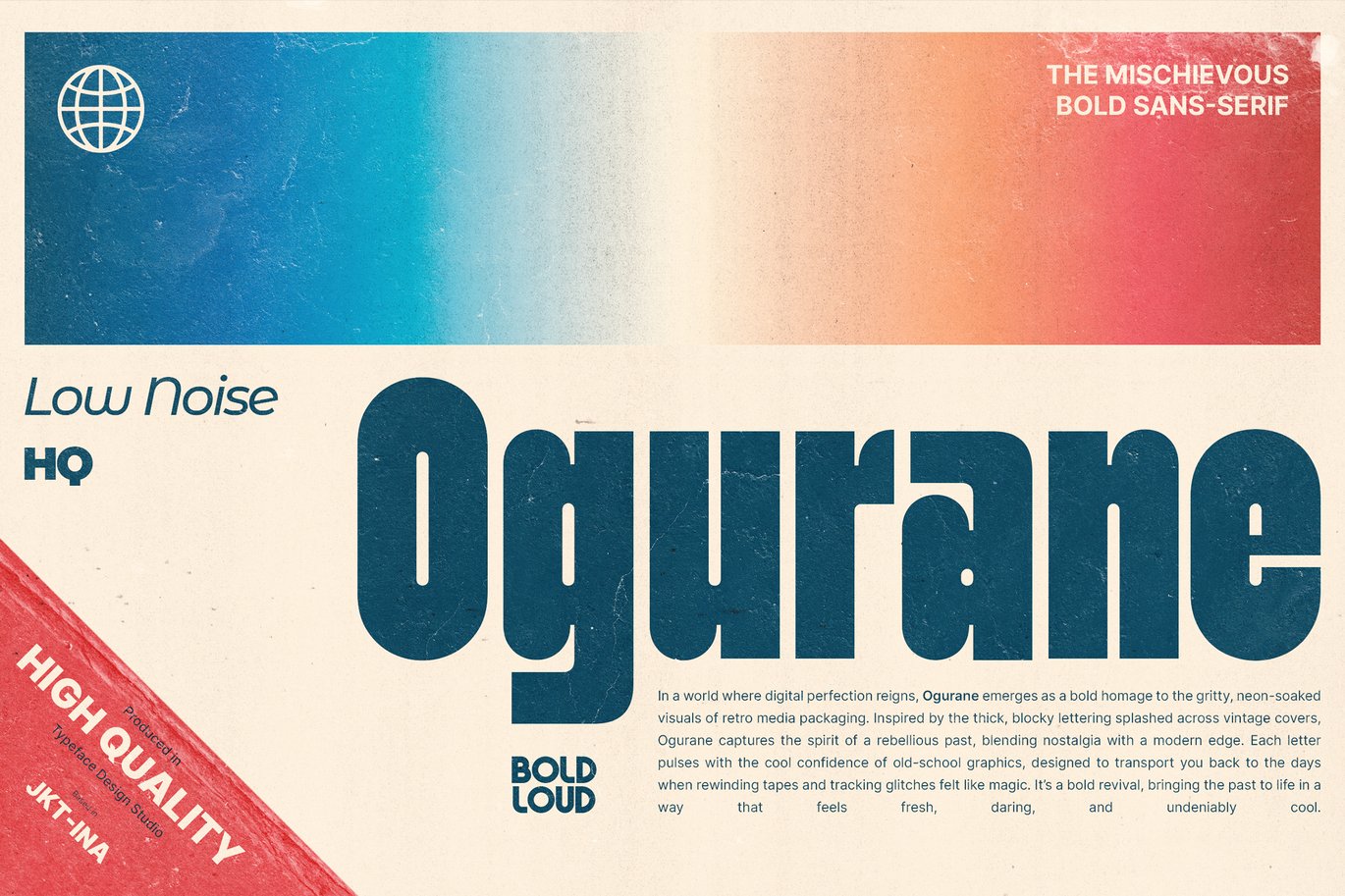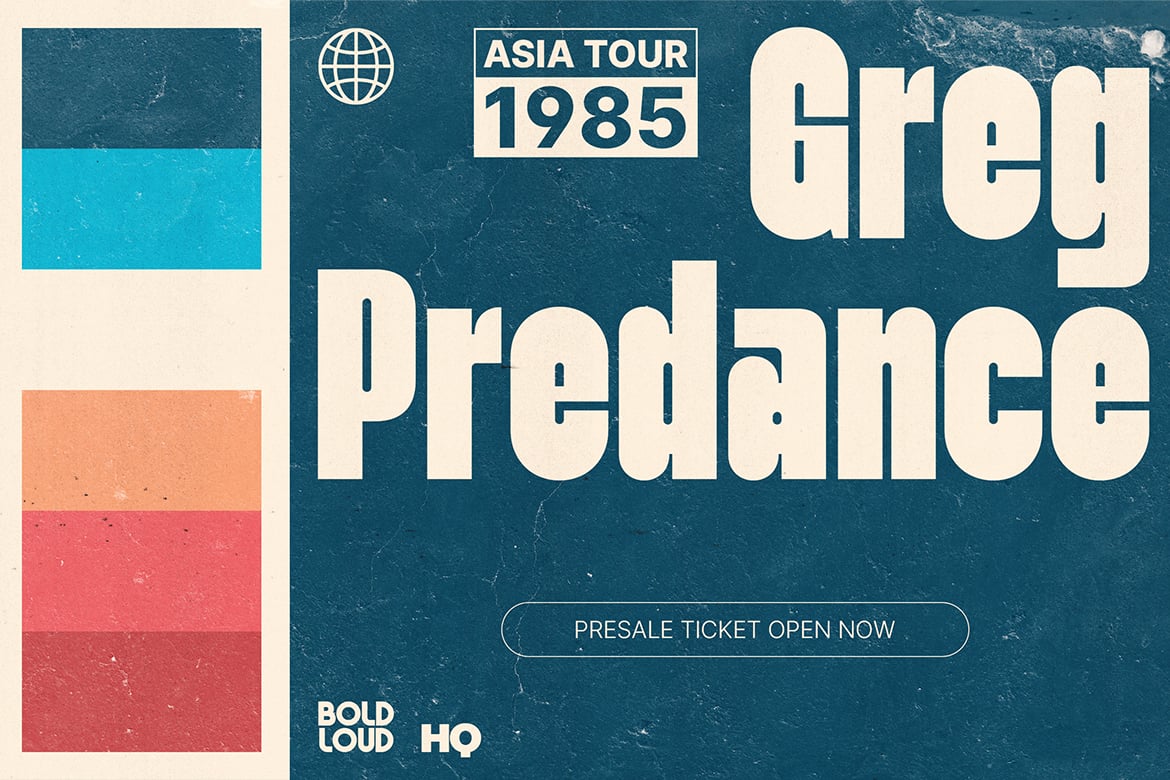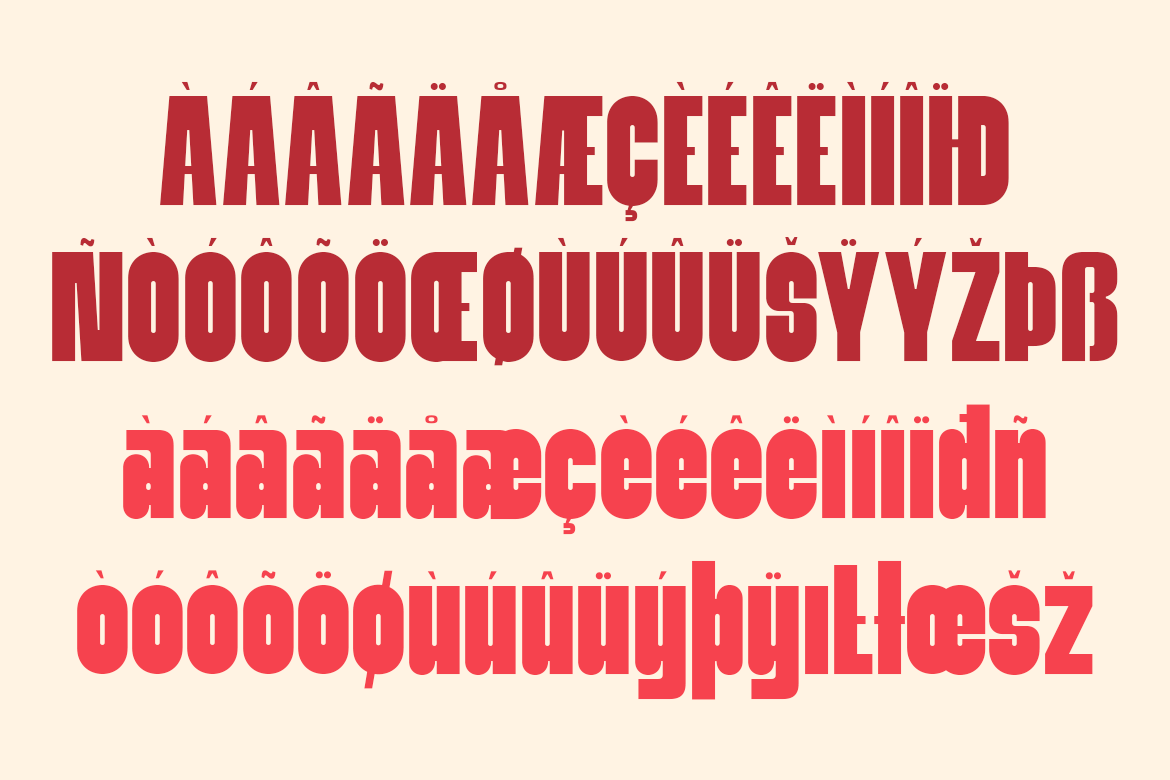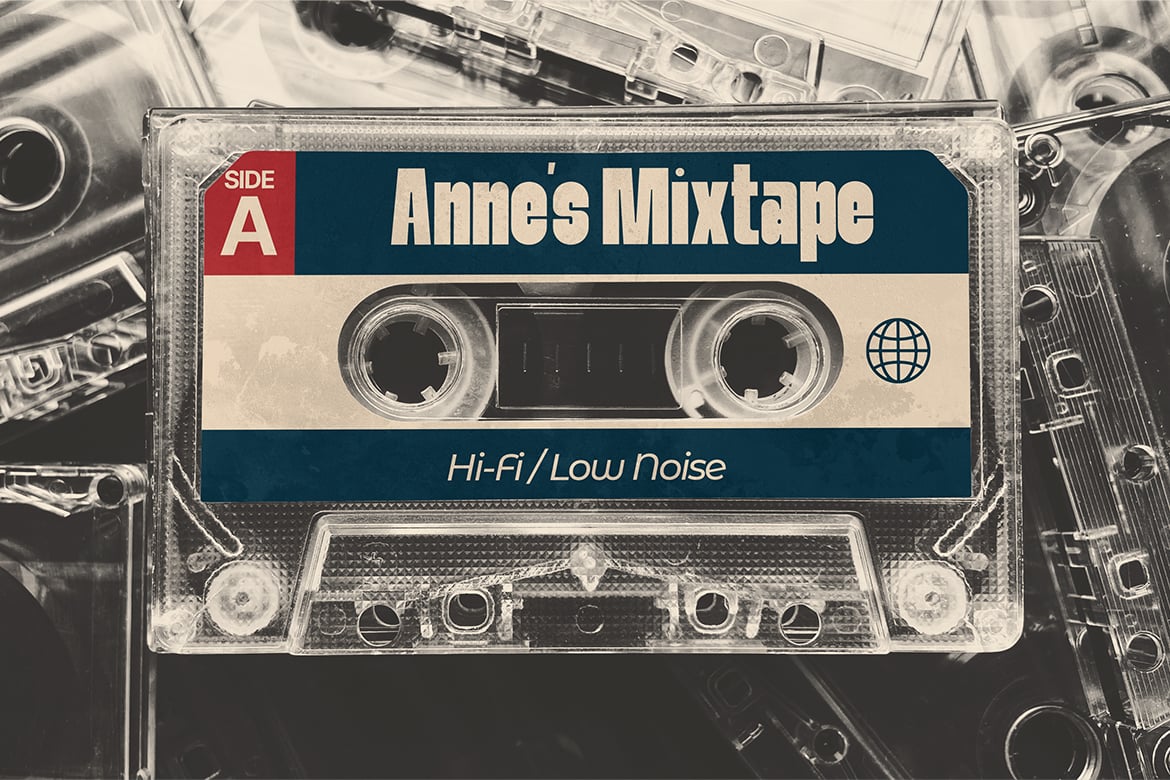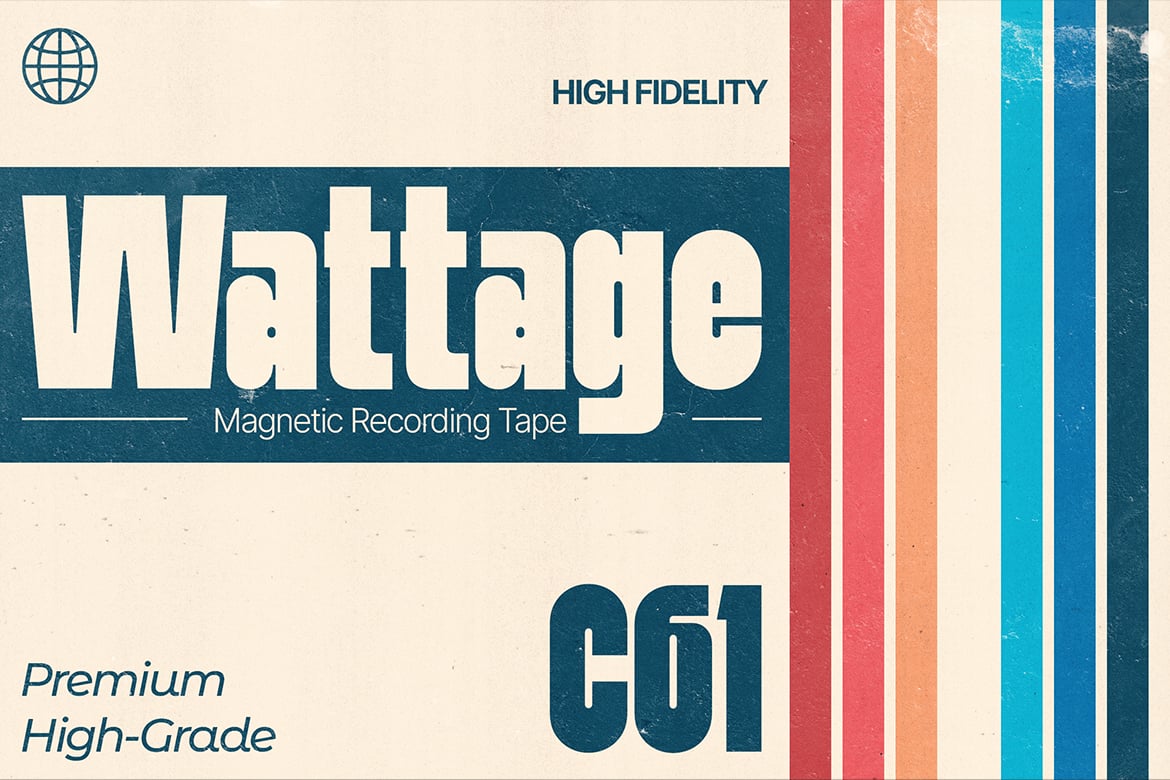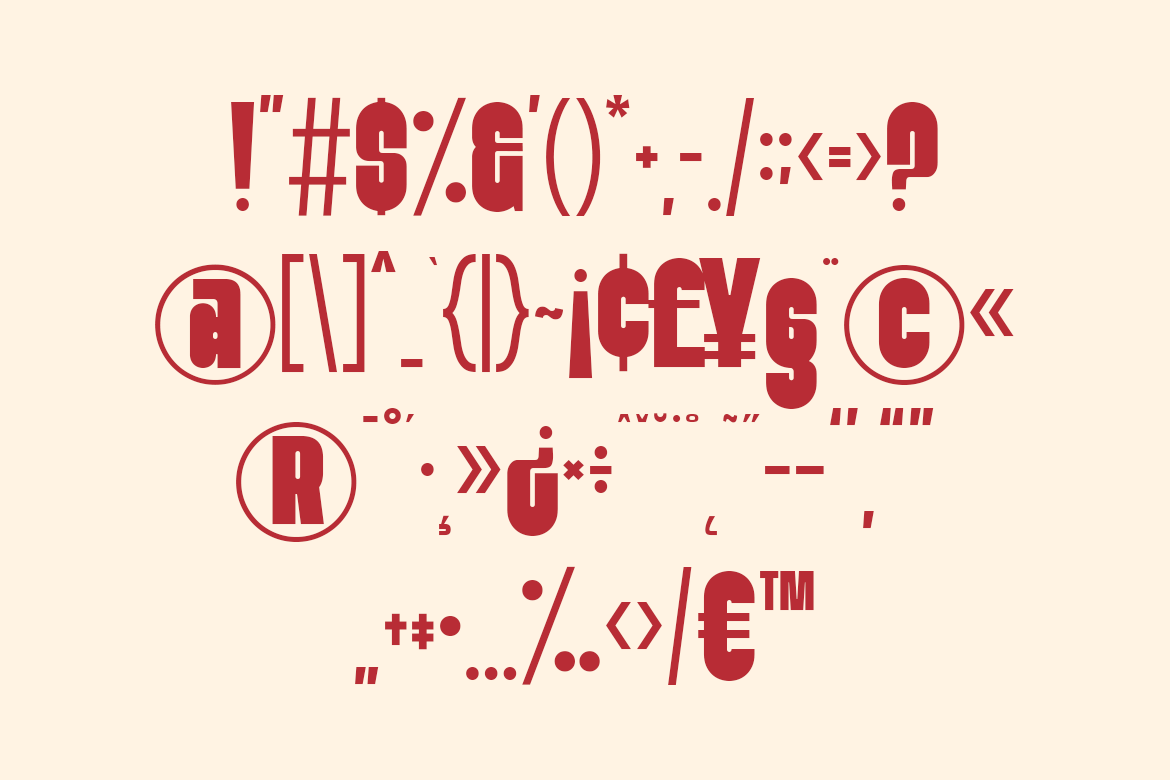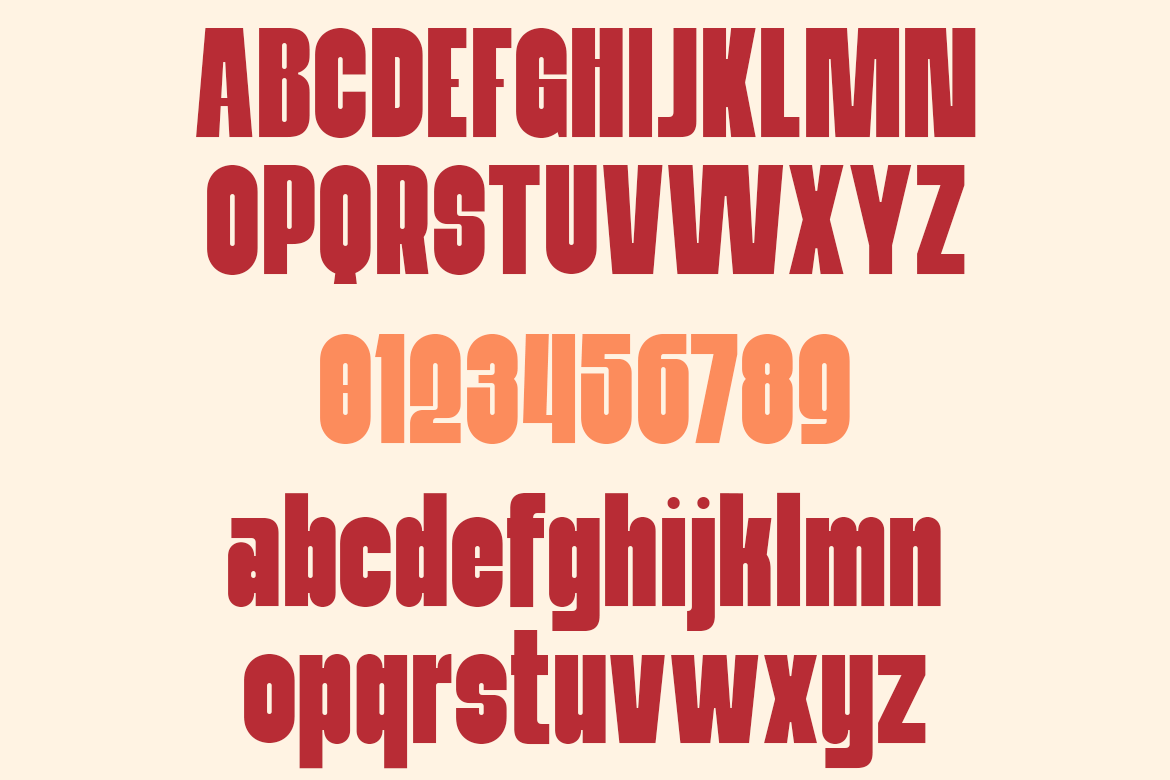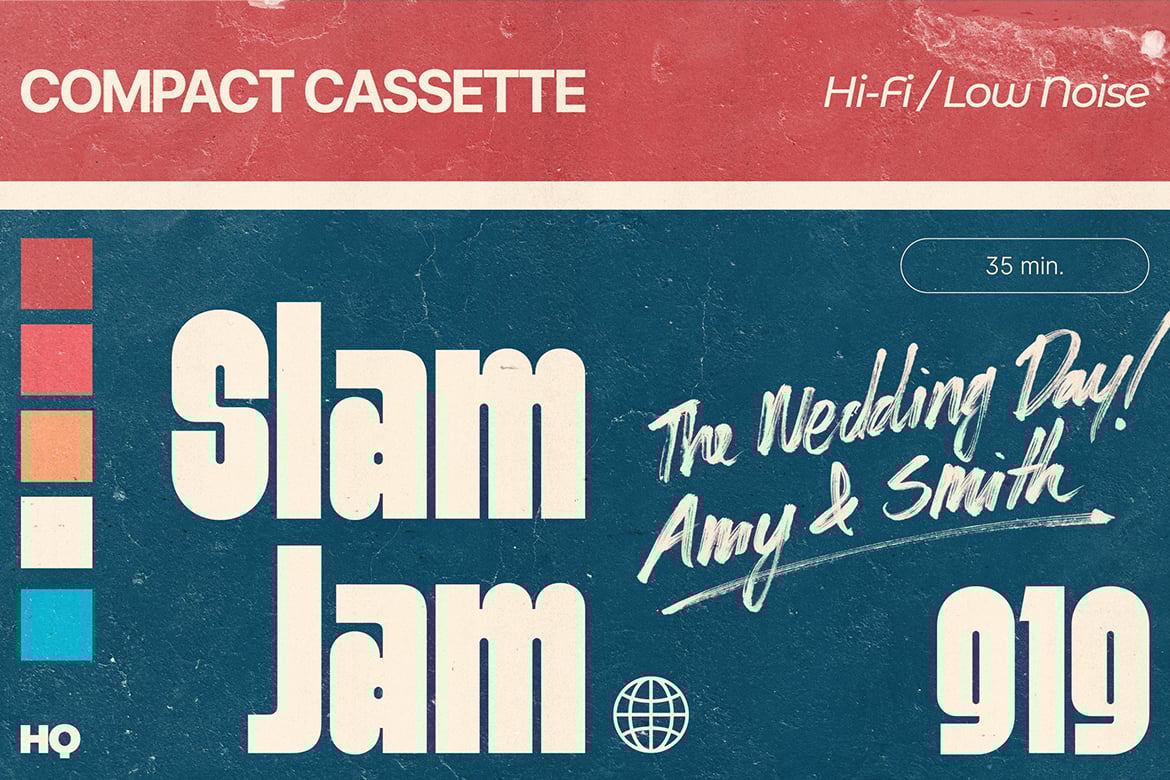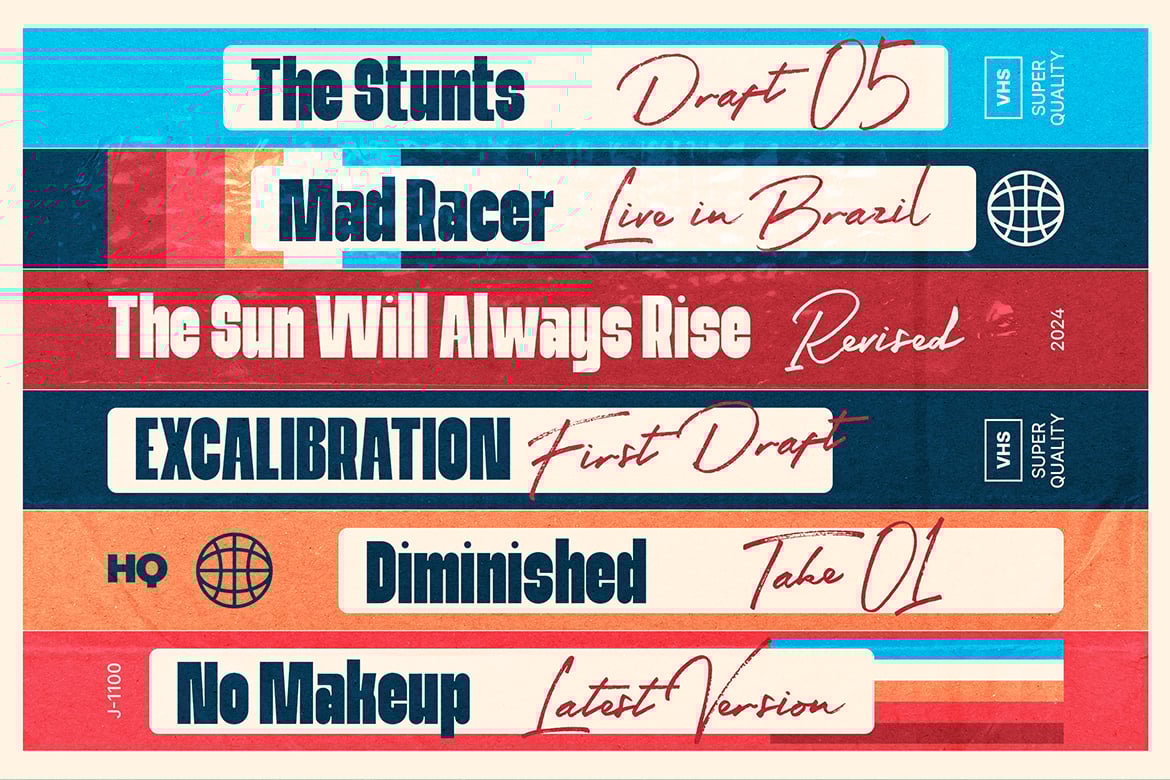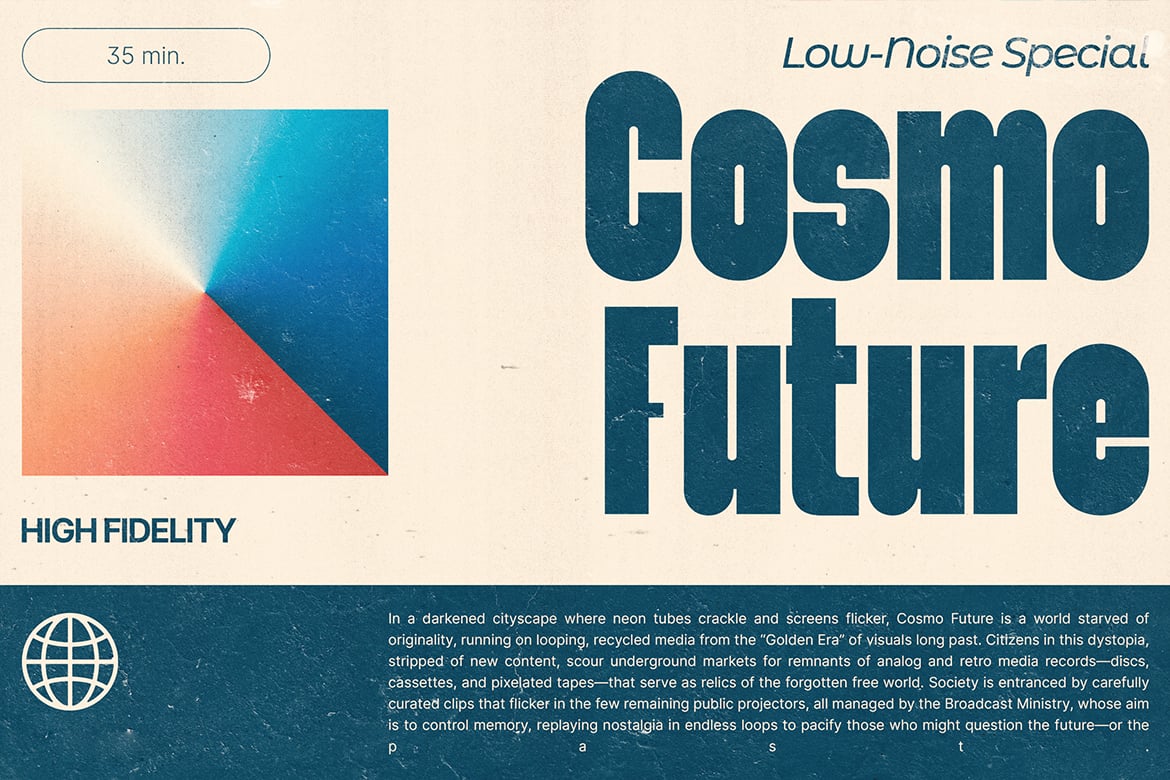
Ogurane – Retro Bold Fonts
Introducing Ogurane: The Bold Retro Pop Font Inspired by Classic VHS Vibes!
Unleash a blast from the past with Ogurane – the bold sans-serif font that’s pure retro magic! Inspired by iconic VHS and cassette packaging, Ogurane brings nostalgia and attitude to any design. Its quirky, mischievous character makes it perfect for posters, logos, branding, and more. Whether you’re looking to make a statement or add a dash of vintage flair, Ogurane’s bold, throwback style is here to revive the good old days in a fresh, cool way.
Make your designs pop with Ogurane – because sometimes, the past is just what the future needs.